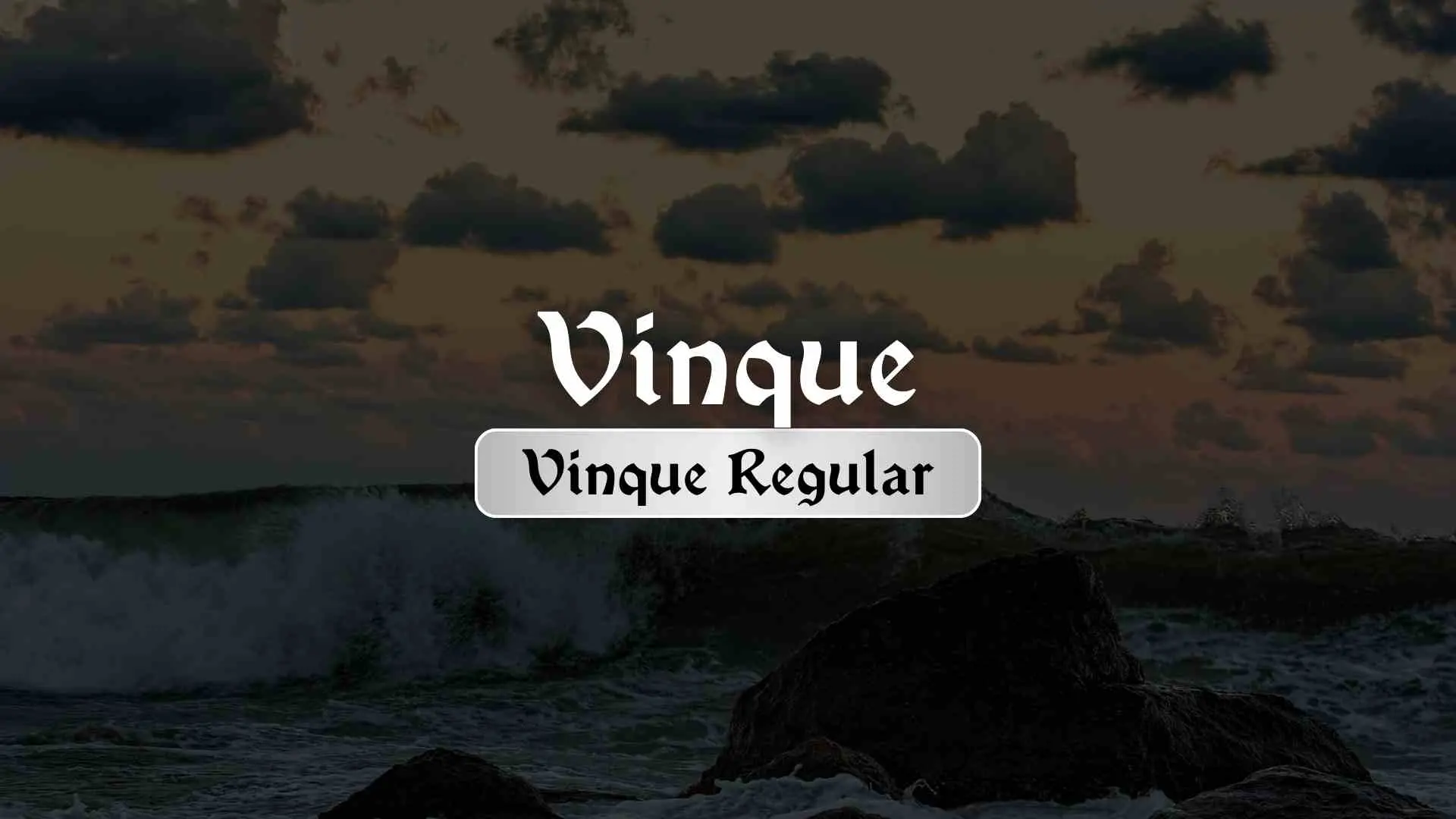
The font Vinque Regular, designed by Ray Larabie, falls under the Serif category & Vinque font family. Its smooth, flowing letterforms make it a versatile choice for projects that require both elegance and readability. Vinque is particularly well-suited for Branding, Packaging, Invitation Card, Signage, Editorial Design and Event Stationery. With its balance of simplicity and decorative appeal, this font brings a polished touch to both personal and professional designs.